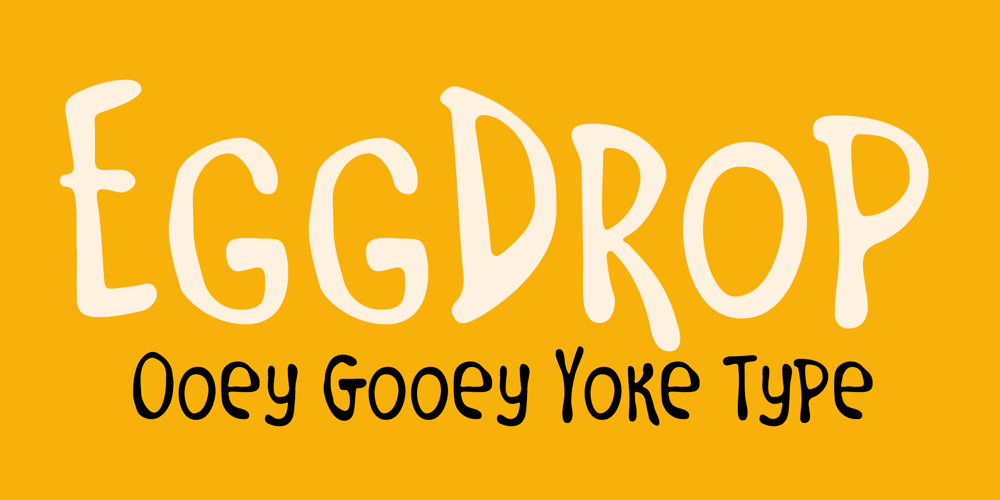
Eggdrop Font Family was designed by Brian J. Bonislawsky, Dave Cohen and published by One Eyed Squid. Eggdrop contains 1 styles and family package options. All the liquid runny look without the drips is what the ooey gooey styling of Eggdrop is all about. Sort corners, blobbed up ends, and an almost melty feel to it gives you all the warm fuzzy feelings.(Eggdrop contains an extended Latin character set with added Vietnamese support.)